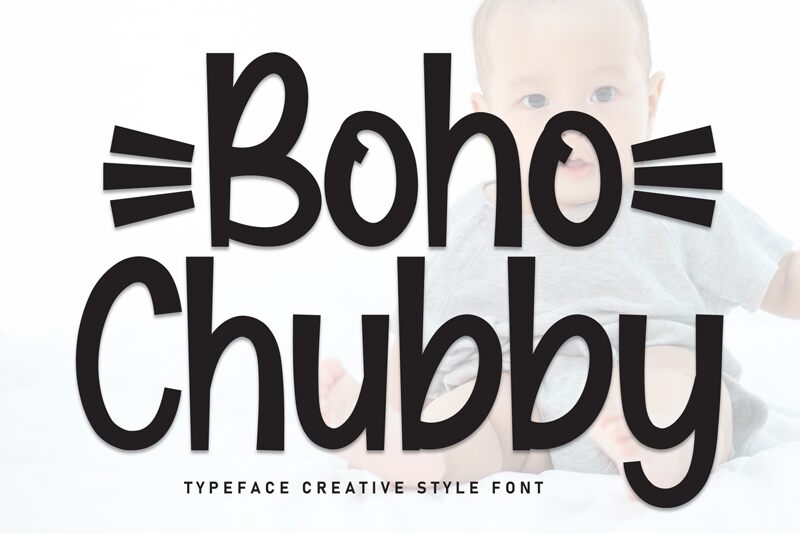
Boho Chubby
Boho Chubby font by Scratchones is a free display font with simple yet versatile cartoon-styled typography. With its casual look and friendly curves, this playful type reflects a modern style of design with approachable organic characters.
The delightful letters of Boho Chubby are perfect for all-age book titles, blog posts, social media, website designs, videography editing, posters, labels, graffiti ideas etc.